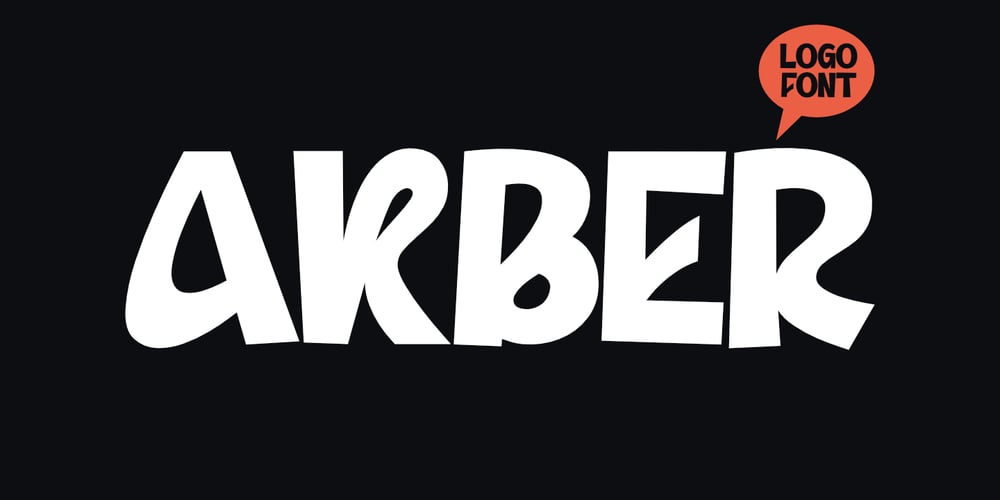
Akber
Akber font
Akber Font Family was designed by Saiful Anwar and published by Sealoung. Akber contains 1 styles and family package options. Akber Modern Sans Serif is designed to make a bold and unforgettable impact in any design project. Its strong, modern style creates a dynamic and visually striking presence, ideal for contemporary design demands.Key Features: Bold and Attention-Grabbing: The thick, sturdy design is perfect for headlines, posters, logos, and other elements that need to stand out. Distinctive Style: Each letter is meticulously crafted, offering a strong yet aesthetically pleasing look. Versatility: Suitable for a broad spectrum of projects like branding, advertising, and social media. Complete Character Set: Includes uppercase and lowercase letters, numbers, and punctuation for flexible design options. Perfect for:Crafting compelling headlines for articles and blogsDesigning striking event postersEstablishing a powerful and memorable brand identityCreating visually appealing advertising materialsMake every project stand out with Akber Modern Sans Serif, a font that blends strength and elegance in each character.